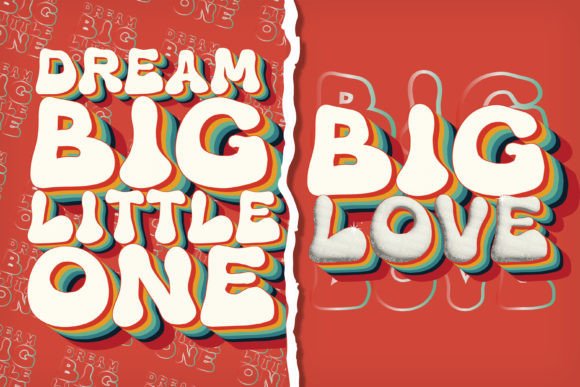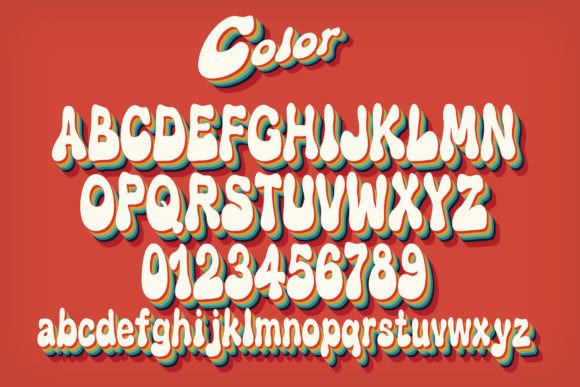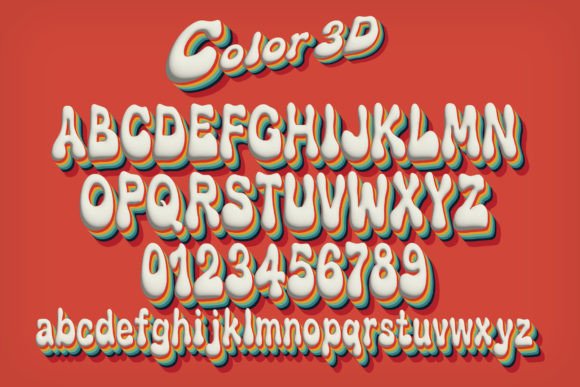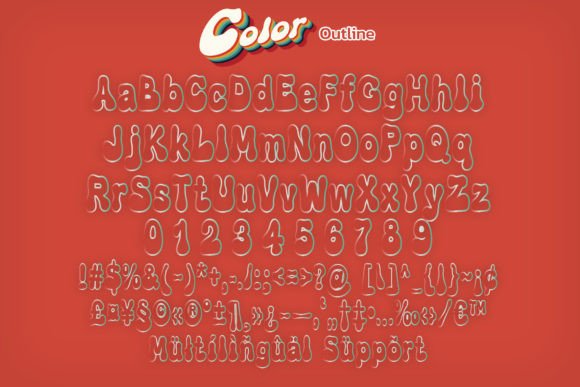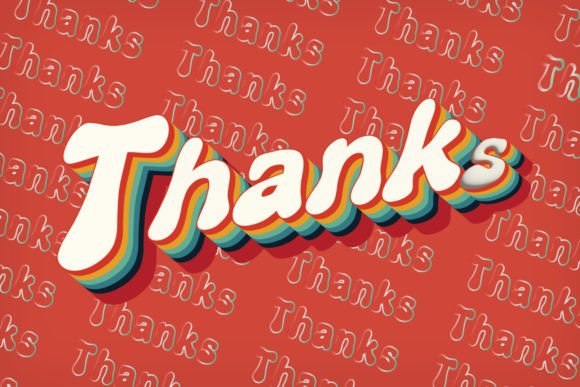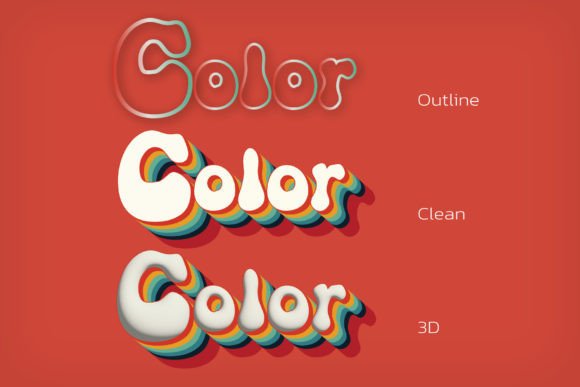
Introduction to Color Font
Color is a cool, retro, and cute color font suitable for a wide spectrum of applications.
From greeting cards to headlines, stickers, and greeting cards, this font will definitely elevate any creation .
Key Features of Color Font
Why Choose Color Font?
Color Font offers exceptional quality and versatility, making it a valuable addition to your design toolkit. Whether you’re creating for personal projects or commercial use, Color Font delivers professional results.